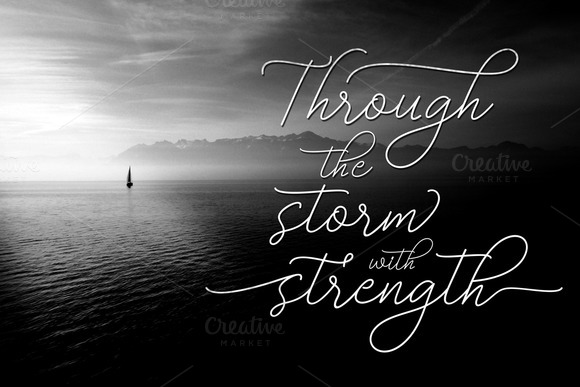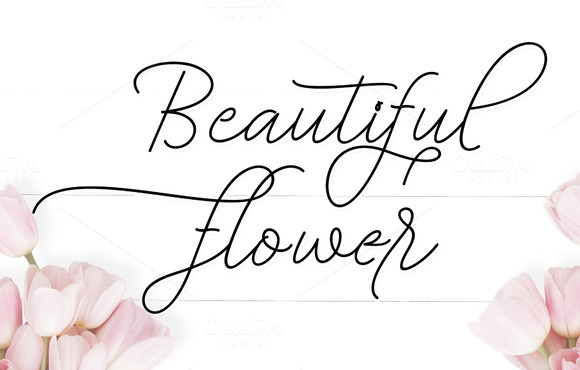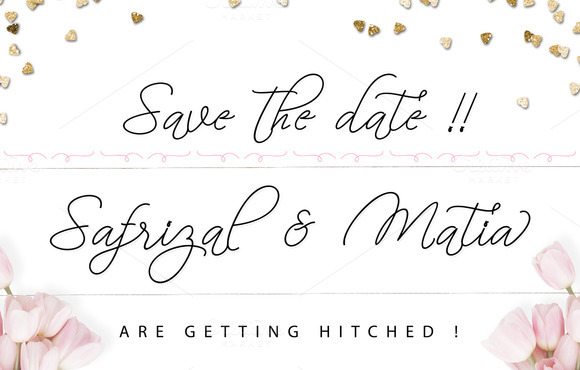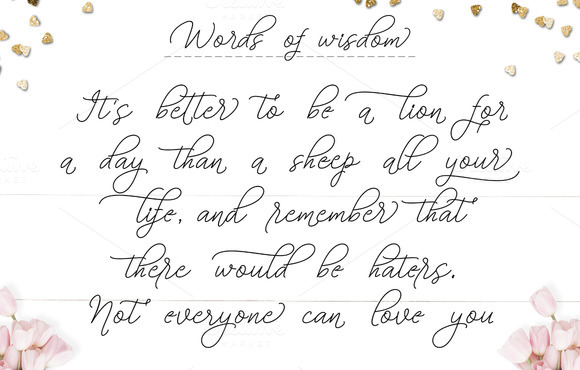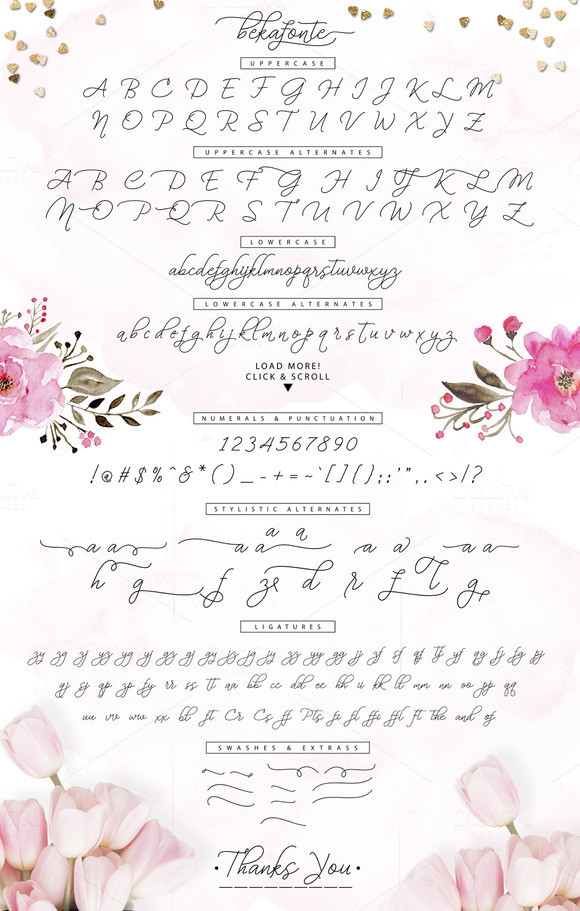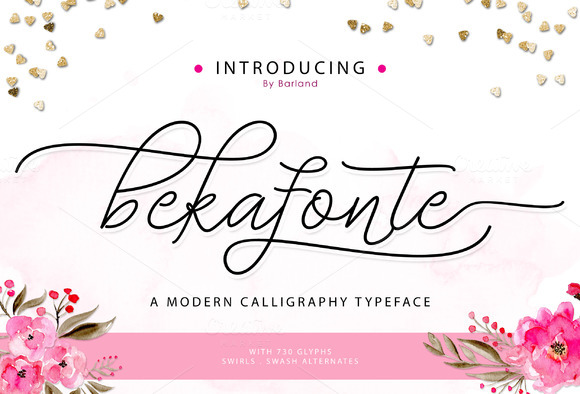
Bekafonte Typeface
Bekafonte Typeface a fancy, doodley, hand-drawn typeface with alternates and swashes galore. Perfect to add a little whimsy and carefree elegance to your next project.